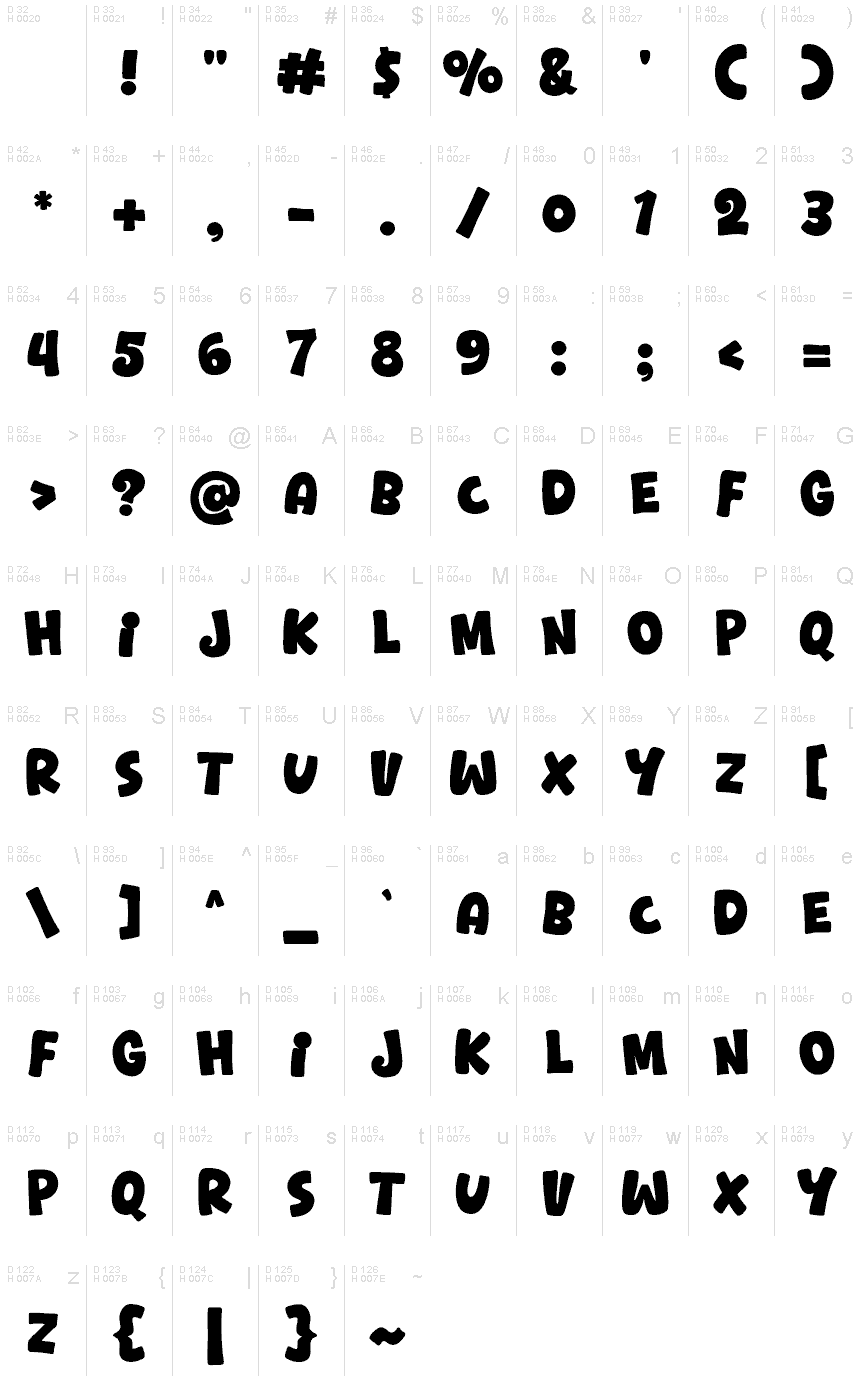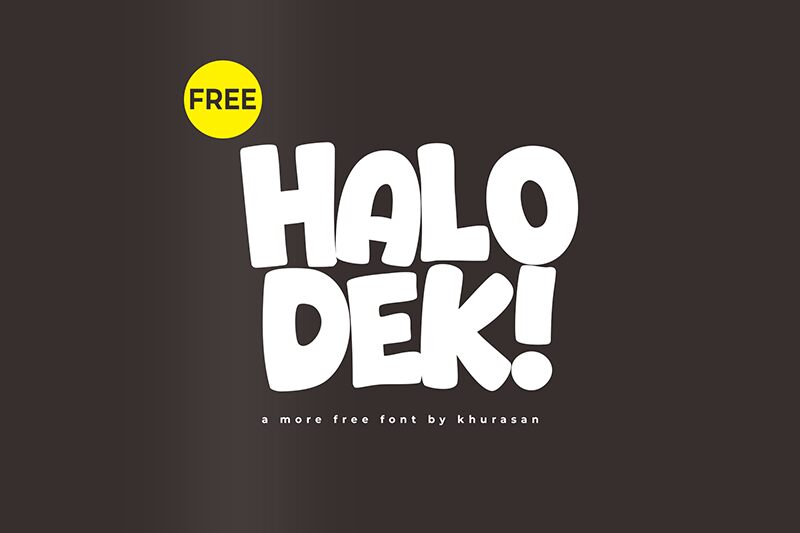
Halo Dek
Halo Dek font by Khurasan is a bold cartoon display typeface that draws inspiration from groovy and retro designs. Its rounded forms give it a friendly, casual appearance suitable for projects that need a vintage feel with a touch of fun. This font captures the essence of 1960s psychedelic and pop culture fonts, offering a chance to incorporate nostalgic elements into modern applications.
This free display font is ideal for branding projects, especially those centered around retro-themed products. Use it for music festival posters, nostalgic merchandise, children’s books, greeting cards, website headers, or social media graphics. It also shines in packaging design, event invitations, apparel design (particularly t-shirts), stickers, and more!